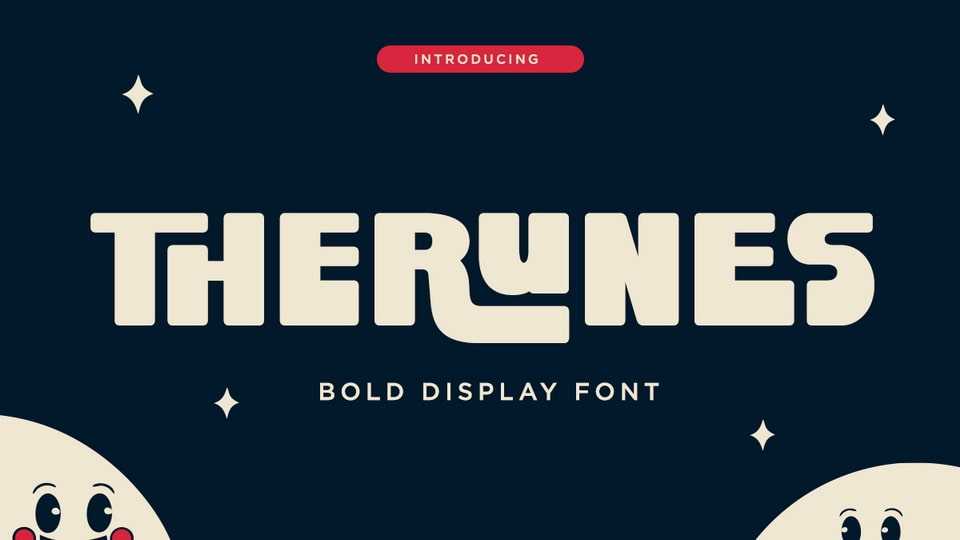
Download Therunes font, a bold and playful display typeface that brings a fun twist to retro-futuristic type! Perfectly crafted for standout branding, eye-catching headlines, and quirky design projects.